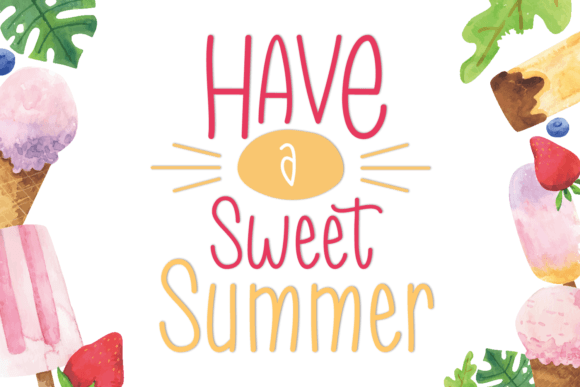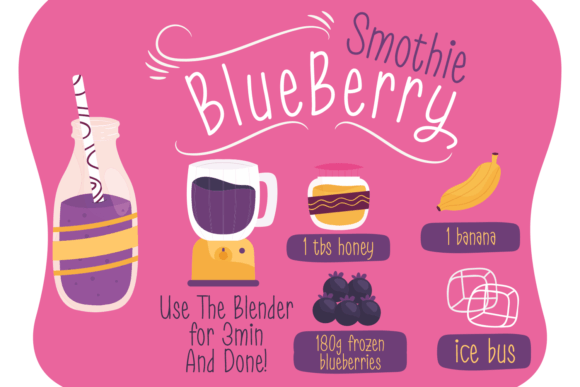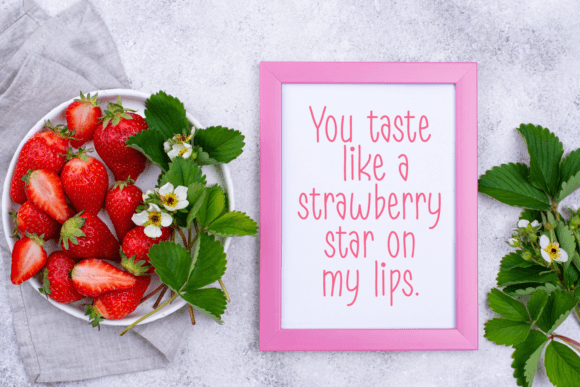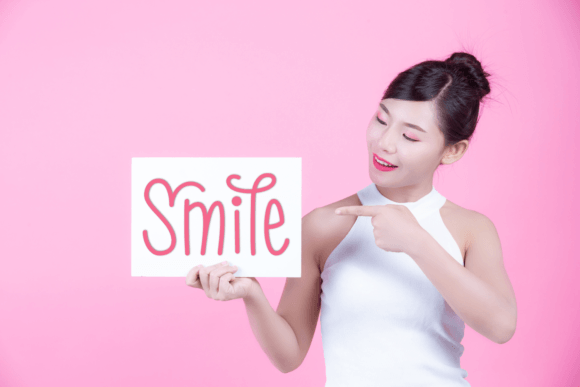
Unlocking Whimsy: The Magic of Berry Sorbet Font
As a designer, have you ever stumbled upon a font that makes your imagination run wild? Perhaps you’re browsing through a font library, and suddenly, a charming handwritten script catches your eye. That’s exactly what happens when you come across the enchanting Berry Sorbet Font. This whimsical font is more than just a style – it’s an invitation to tap into your creativity and add a touch of magic to your designs.
Characterized by its thin and tall style, Berry Sorbet Font is perfect for projects that require a sense of wonder and personality. From children’s books to branding, invitations, and social media graphics, this font is sure to captivate audiences and leave a lasting impression. With its playful demeanor and charming handwritten appearance, Berry Sorbet Font is a valuable addition to any designer’s toolkit.
Berry Sorbet Font Key Features
- Font Family: Berry Sorbet
- Unique Characteristics: A unique, hand-drawn font with a whimsical feel, featuring a range of playful and elegant characters.
Berry Sorbet Font Review
I recently had the chance to work with the Berry Sorbet font, and I must say it’s a unique and quirky addition to any design project. ✨ The font’s playful and whimsical nature makes it perfect for creating eye-catching headings and titles. The rounded edges and soft curves give it a friendly and approachable feel that’s sure to engage your audience.
- Works well for: headings, titles, and short text passages where a playful tone is desired
- Looks great in: digital design, social media, and advertising where a modern and trendy feel is needed
- Paired well with: bright and bold colors to create a striking contrast
However, there are a few limitations to consider. ⚠️ The font may not be the best choice for lengthy text passages, as it can be difficult to read at larger font sizes. Additionally, the font’s playfulness may not be suitable for more formal or professional designs.
Overall, I think Berry Sorbet is a great addition to any designer’s toolkit. It’s a fun and versatile font that’s sure to add some personality to your designs. Just be sure to use it judiciously and pair it with the right colors and layout to get the best results.
Berry Sorbet Font: A Practical Application Guide
Tip: Use the Berry Sorbet font in combination with bold text for a striking visual effect.
Tip: Experiment with different font sizes and colors to create a unique visual identity.
Tip: Use the Berry Sorbet font in headings and subheadings to add visual interest to your document.
The Berry Sorbet font is perfect for:
Designing children’s books and educational materials
Creating visually appealing social media graphics
Developing a brand identity with a playful and whimsical tone
Alternatives to Berry Sorbet Font
Creamistry Font
Creamistry Font is a playful, cursive font that is perfect for creating a whimsical and youthful vibe. It’s ideal for use in branding, packaging, and advertising for companies that target a younger audience. Compared to Berry Sorbet Font, Creamistry Font has a more delicate and intricate design, making it suitable for applications where a touch of elegance is required.
Great Vibes Font is a modern, handwritten font that exudes a sense of fun and relaxation. It’s perfect for use in branding, signage, and advertising for companies that want to convey a sense of happiness and well-being. Compared to Berry Sorbet Font, Great Vibes Font has a more casual and laid-back design, making it suitable for applications where a friendly and approachable tone is required.
Alex Brush Font is a elegant, handwritten font that is perfect for creating a sophisticated and refined vibe. It’s ideal for use in branding, packaging, and advertising for companies that target a more mature audience. Compared to Berry Sorbet Font, Alex Brush Font has a more classic and timeless design, making it suitable for applications where a sense of luxury and sophistication is required.
Lobster Font is a bold, cursive font that is perfect for creating a dramatic and eye-catching vibe. It’s ideal for use in branding, signage, and advertising for companies that want to make a statement and grab attention. Compared to Berry Sorbet Font, Lobster Font has a more aggressive and attention-grabbing design, making it suitable for applications where a sense of drama and excitement is required.